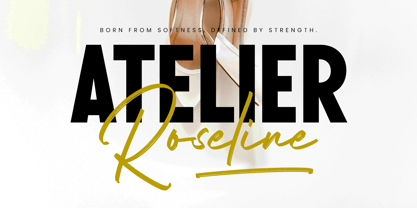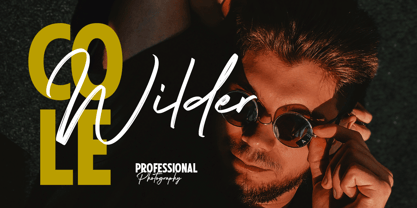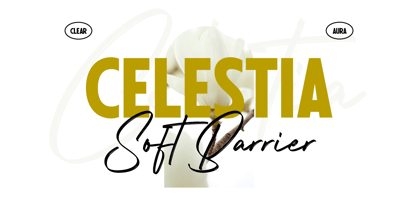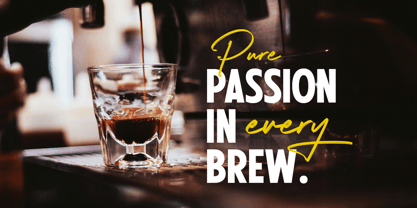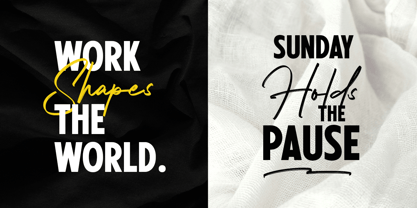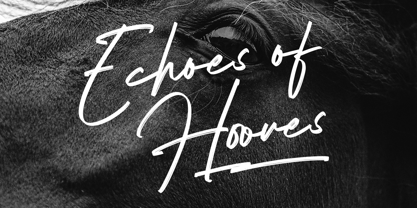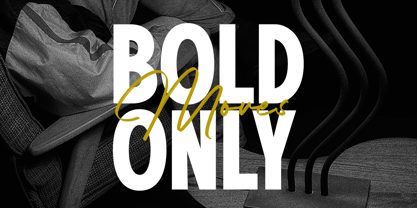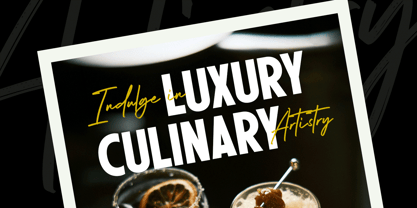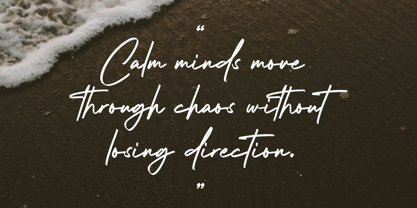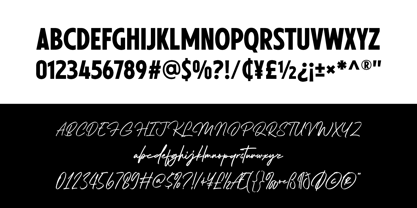
Shelvia Montanila Sans
by Arterfak Project
The Shelvia Montanila Sans Font Family was designed by Ahmad Ramzi Fahruddin and published by Arterfak Project. Shelvia Montanila Sans contains 2 styles and family package options. More about this family
Meet Shelvia Montanila, a beautiful font duo where bold clarity meets expressive elegance. This pairing blends a strong, modern sans serif with a fluid signature script—creating a perfect balance between structure and personality. The sans serif is clean and confident, ideal for headlines and bold branding. Meanwhile, the signature script flows naturally with a handcrafted feel, adding warmth and sophistication. Together, they create a contrast that feels both modern and timeless. Shelvia Montanila works beautifully across branding, logos, social media, packaging, and editorial design. The combination of strong sans and expressive script makes your design look polished, balanced, and instantly more engaging—without overthinking the pairing. What you’ll get : Shelvia Montanila – Sans Shelvia Montanila – Script Uppercase Lowercase Numbers & symbols Ligatures Multilingual support
Designers: Ahmad Ramzi Fahruddin
Foundry: Arterfak Project